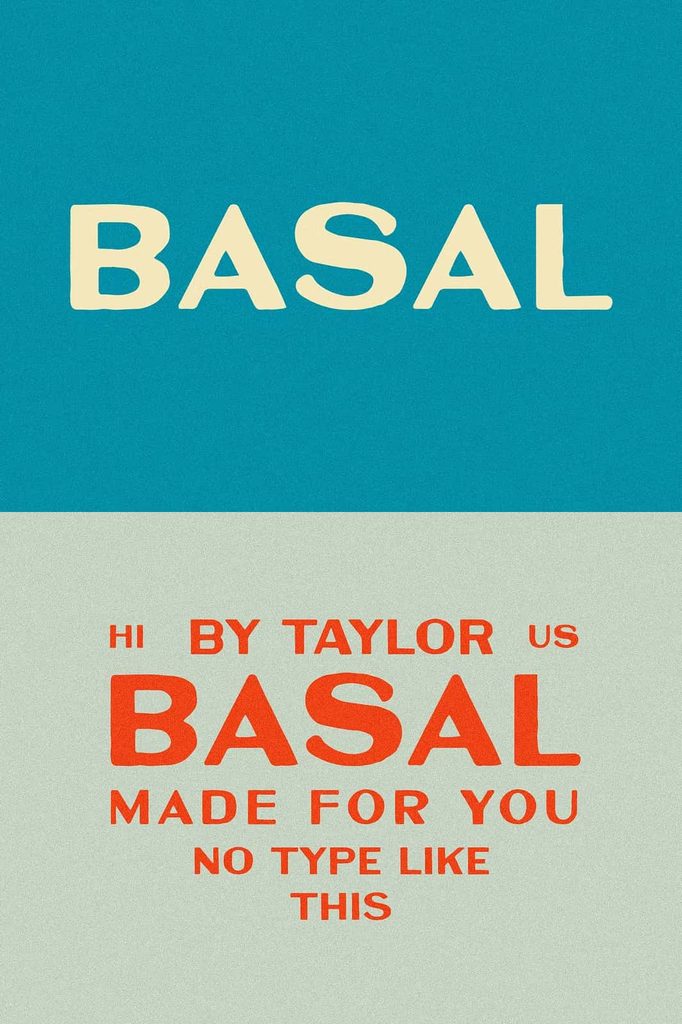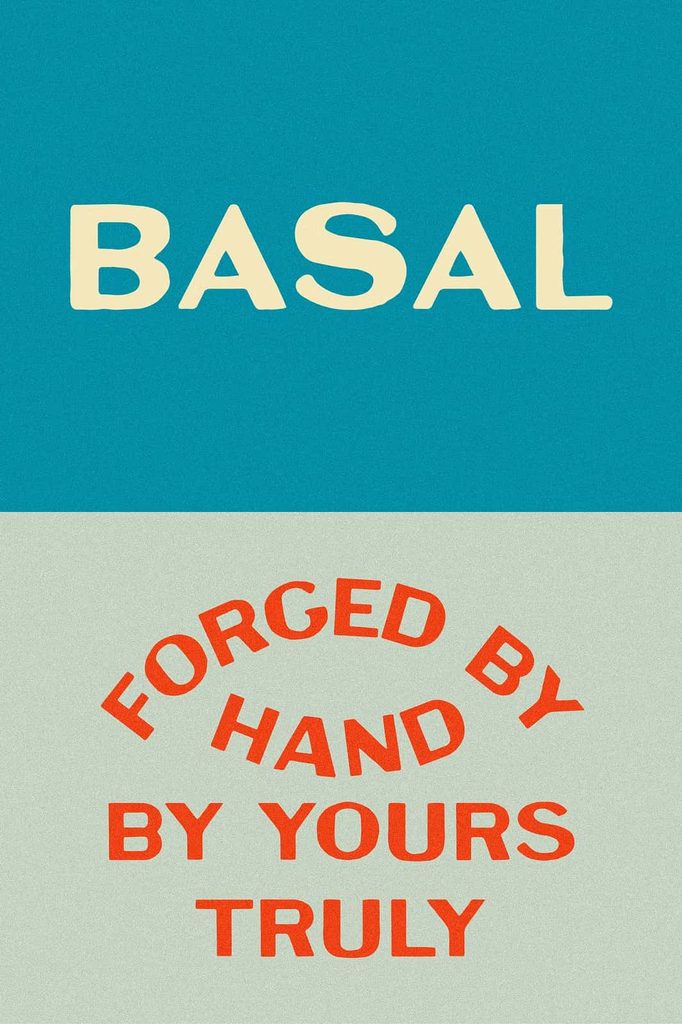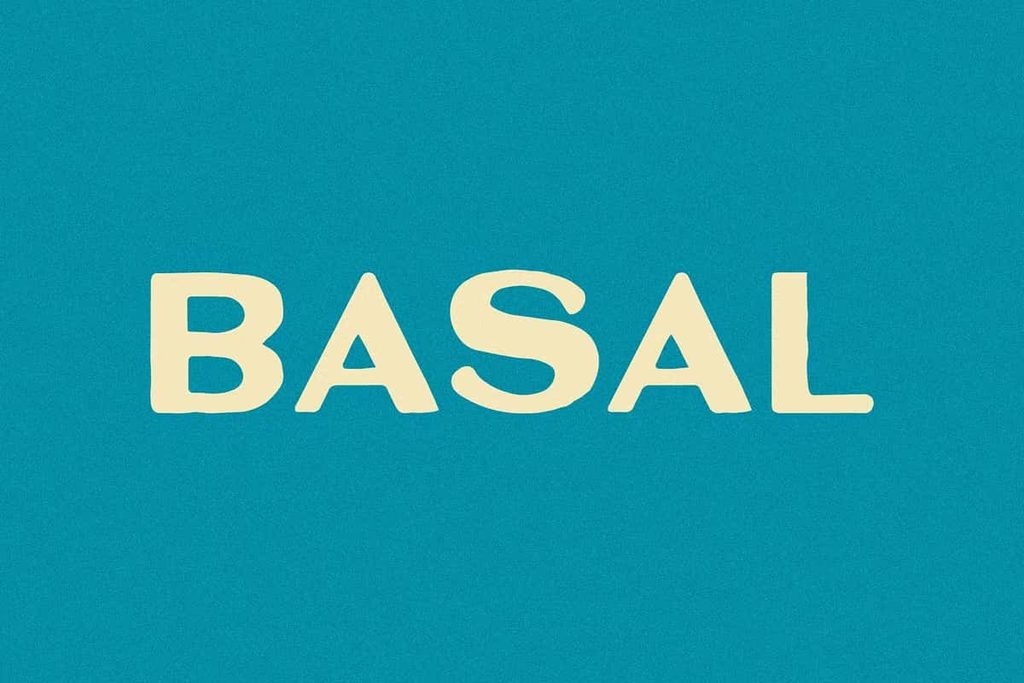
Basal I A Bold Sans Serif Font
Basal Font – A Sturdy Vintage Typeface for Modern Design
Basal Font takes its name from the Spanish word for “base layer” or “fundamental,” and that idea perfectly captures the character of this distinctive typeface. Designed to provide a strong foundation for visual projects, Basal combines historical inspiration with practical modern typography. Its sturdy construction, stripped-back appearance, and vintage character make it an excellent choice when you want your design to feel established, confident, and authentic.
The typeface draws inspiration from an old bottle discovered around 1910. Rather than simply copying the original lettering, the design updates its historical qualities just enough to make them work beautifully in contemporary applications. Basal preserves the personality of early twentieth-century lettering while introducing the consistency and usability that modern designers expect. The result is a typeface that feels old enough to carry a story but refined enough to fit naturally into today’s branding, packaging, editorial, and display work.
The Inspiration Behind Basal Font
Basal begins with history. Its visual foundation comes from lettering found on an old bottle dating back to approximately 1910. That source gives the typeface an unmistakable sense of age and authenticity. Instead of creating an artificial vintage effect, the design builds its personality around the proportions, structure, and visual attitude of historical lettering.
The designer then carefully refined those qualities for modern use. This process keeps the original spirit intact while improving the typeface’s flexibility. Basal does not overwhelm a layout with unnecessary decoration. Instead, it establishes a dependable visual foundation that allows other design elements to work alongside it.
This balance makes Basal particularly useful for designers who want to communicate heritage without making a project look outdated. It can suggest craftsmanship, history, reliability, and authenticity while maintaining a clean and purposeful appearance.
A Strong and Stripped-Back Character
Basal Font focuses on strength rather than ornamentation. Its sturdy letterforms create a firm presence that immediately gives text more visual weight. The stripped-back construction removes distractions and allows the shapes of the characters to communicate clearly.
This approach makes Basal especially effective for designs that need a confident typographic voice. Use it to establish a strong headline, identify a product, build a memorable wordmark, or create packaging that feels grounded and dependable. The typeface can carry attention without relying on excessive visual effects.
Its straightforward personality also makes it easy to combine with other fonts. Pair Basal with a simple sans serif for a contemporary layout, or combine it with a refined serif to create a stronger contrast between historical and modern influences. You can also use generous spacing and simple compositions to emphasize its architectural character.
Build Your Design From the Ground Up
The concept behind Basal extends beyond its name. A base layer provides the structure that supports everything placed above it, and the same principle applies to this typeface. Basal works particularly well when typography needs to establish the foundation of a visual identity.
Start with Basal for a primary headline, brand name, packaging title, or prominent label. Then build supporting information around it using complementary typography. Its solid presence can anchor a composition while lighter fonts handle secondary details. This makes it a practical option for designers who value hierarchy, clarity, and visual balance.
Ideal Uses for Basal Font
Basal Font adapts to a wide range of creative projects. Its vintage foundation and modern refinement allow it to move comfortably between commercial and editorial applications.
Branding and Logos
Use Basal to create logos and wordmarks with a strong sense of identity. Its historical influence can help brands communicate craftsmanship, authenticity, durability, and established character. It works especially well for businesses that want a distinctive identity without relying on overly decorative lettering.
Packaging Design
Basal can give product packaging a grounded and memorable appearance. Apply it to labels, bottle designs, boxes, food packaging, beverage branding, and specialty products. Its old-world inspiration can reinforce a handmade or heritage-focused concept while its updated construction keeps the finished design looking professional.
Editorial Design
Bring Basal into magazine covers, posters, brochures, catalogs, and other editorial projects when you need typography with personality. Its strong forms can establish clear headlines and create an immediate focal point within a composition.
Posters and Signage
The sturdy appearance of Basal makes it a natural option for posters, signs, promotional graphics, and display typography. Use large-scale lettering to emphasize its structure and give your design a confident visual statement.
If your next project needs typography that feels authentic, sturdy, and rooted in history, Basal offers a reliable starting point. Build from the ground up with a typeface that respects its historical inspiration while confidently stepping into modern design.